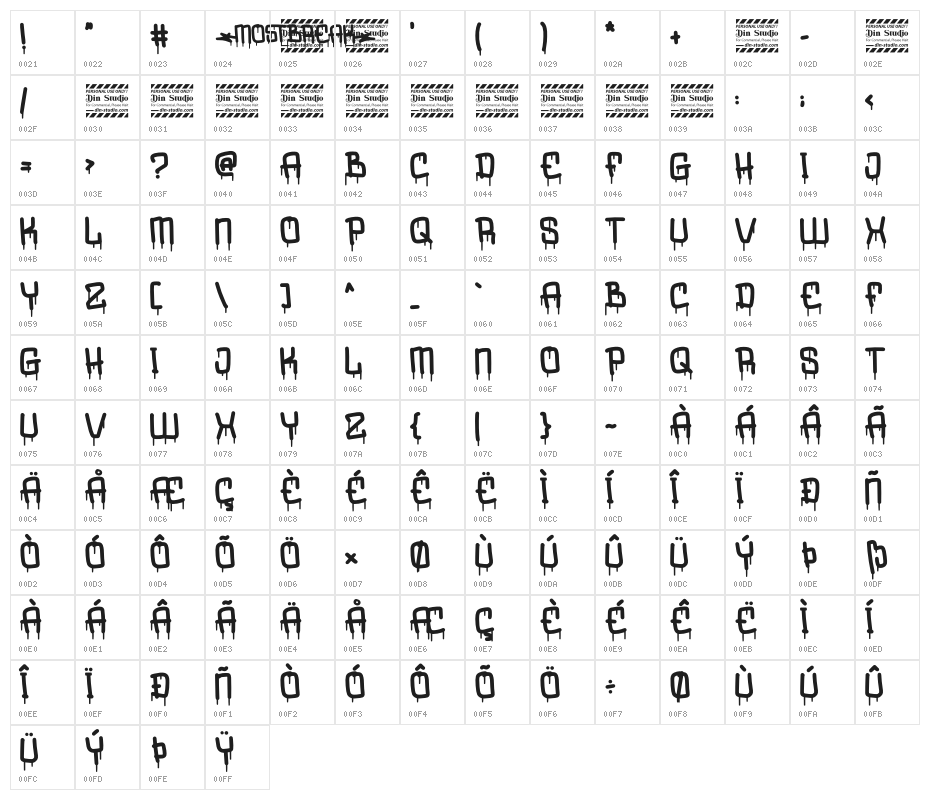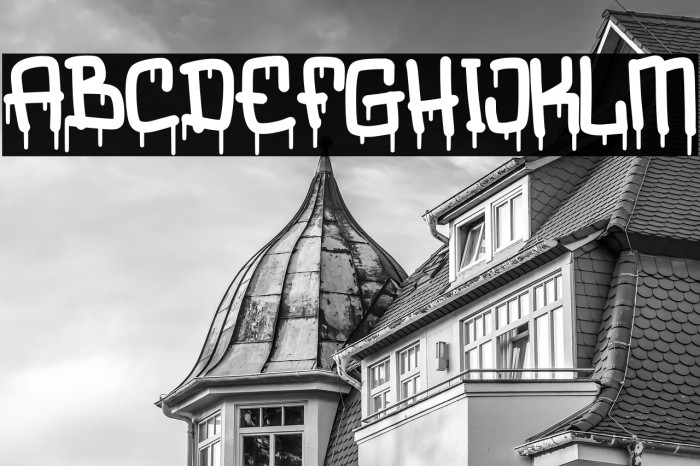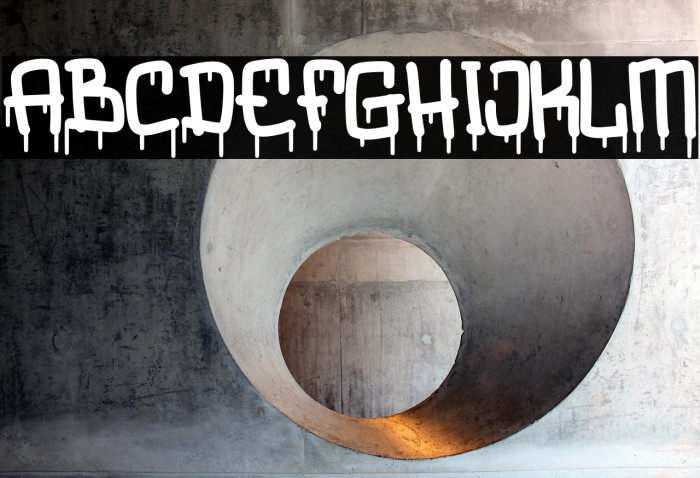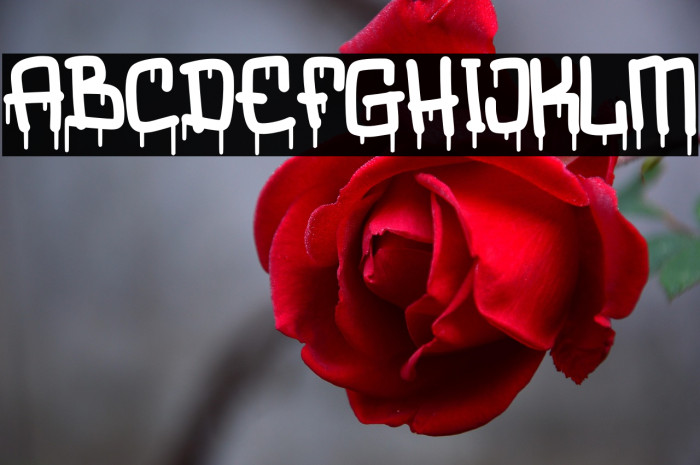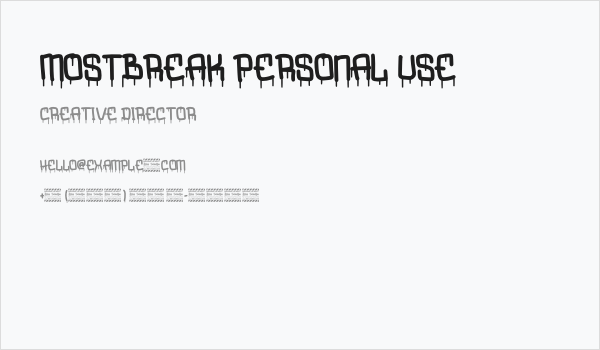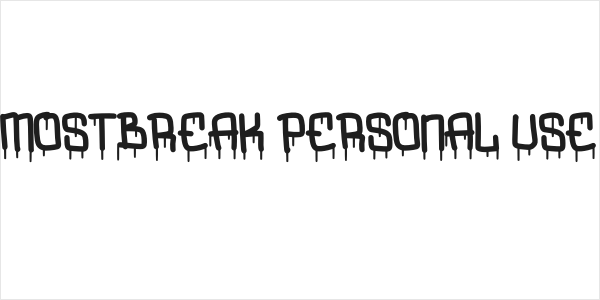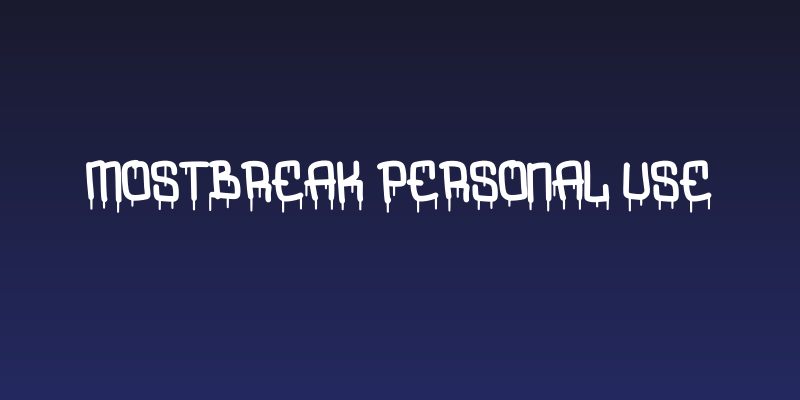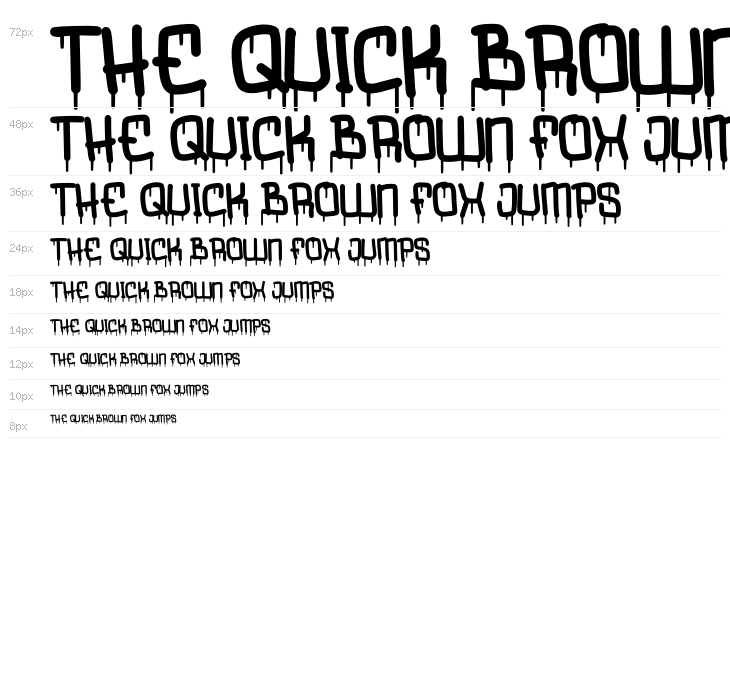
Mostbreak Personal Use Font
Mostbreak Personal Use Description
This font features a bold and edgy design with a distinct dripping effect that gives it a graffiti-like appearance. The uppercase and lowercase letters maintain a consistent style, characterized by thick strokes and a playful, rebellious vibe. The numbers and special characters are designed to match this aesthetic, making the font ideal for projects that require a strong visual impact. The overall look is modern and urban, with a touch of artistic flair that sets it apart from traditional fonts.
| Overall Style | Modern, Urban, Artistic |
| Proposed Projects | Ideal for street art designs, urban-themed posters, music album covers, and edgy branding projects. |